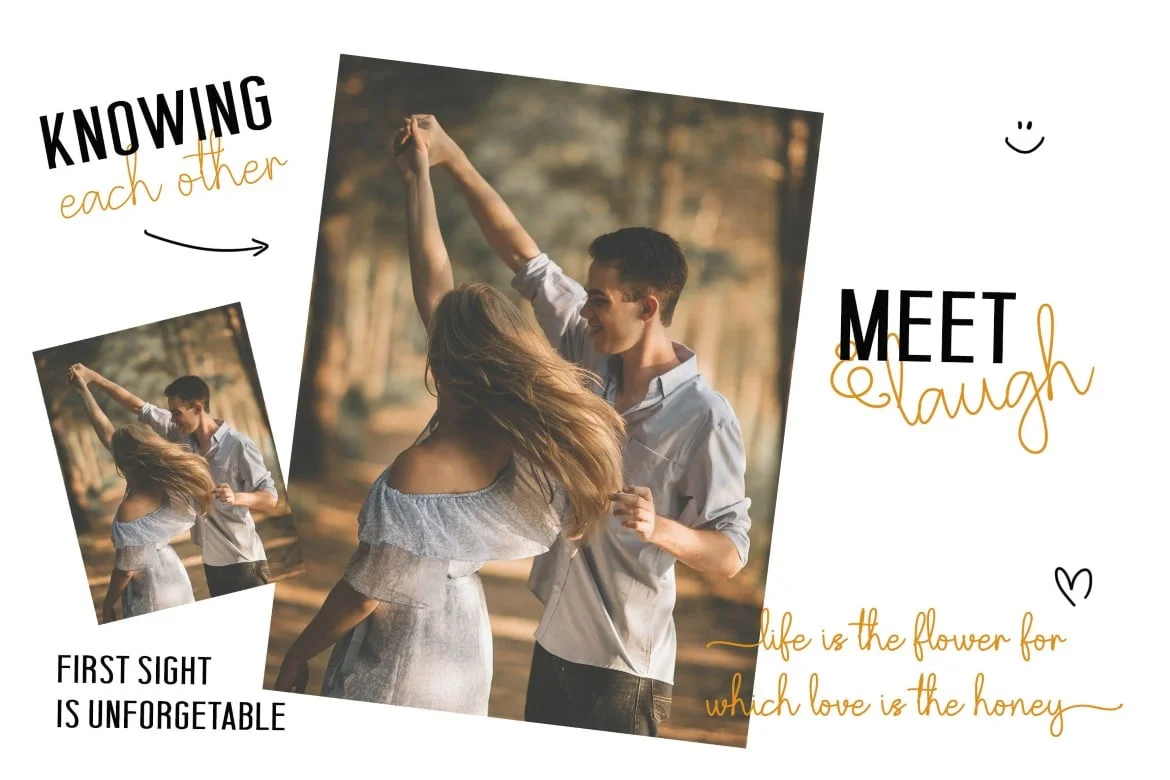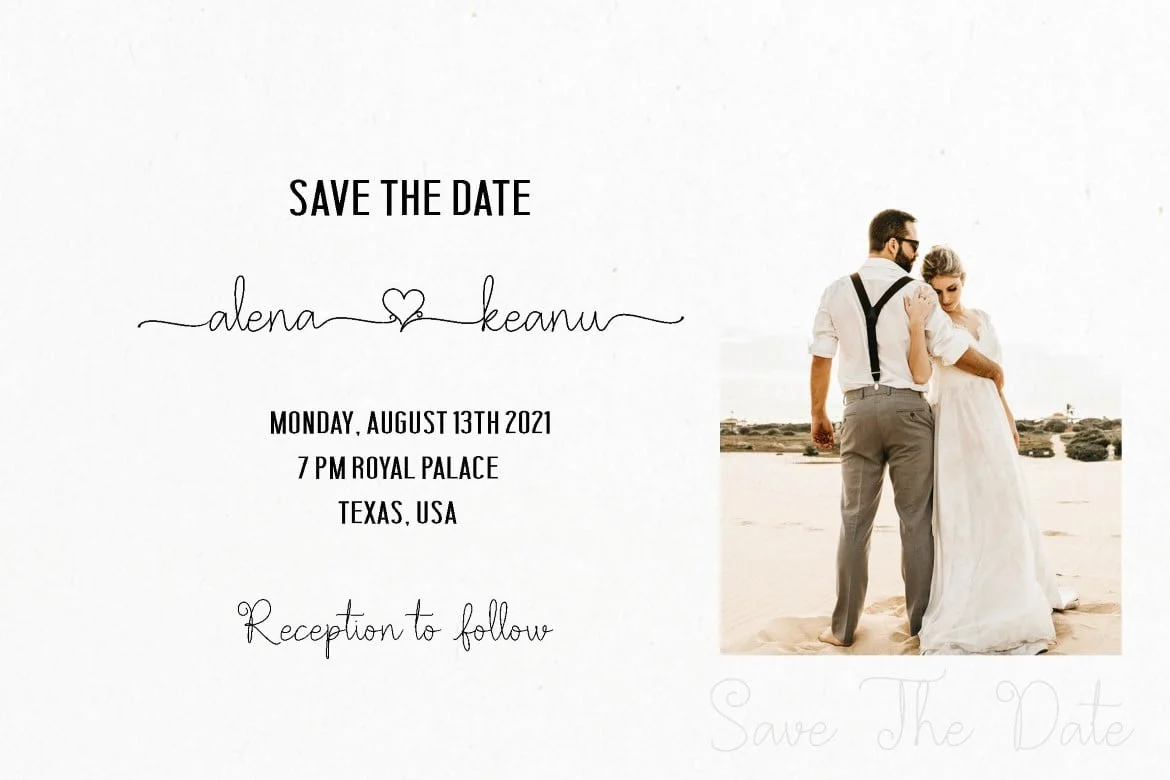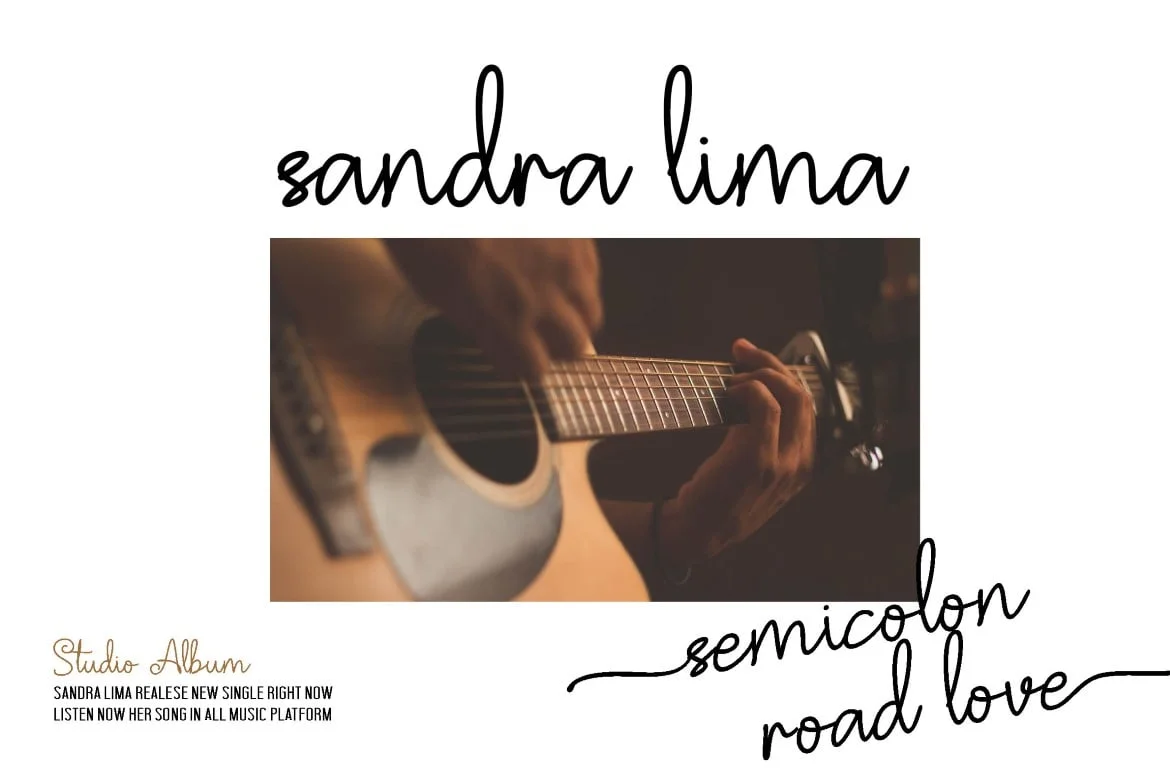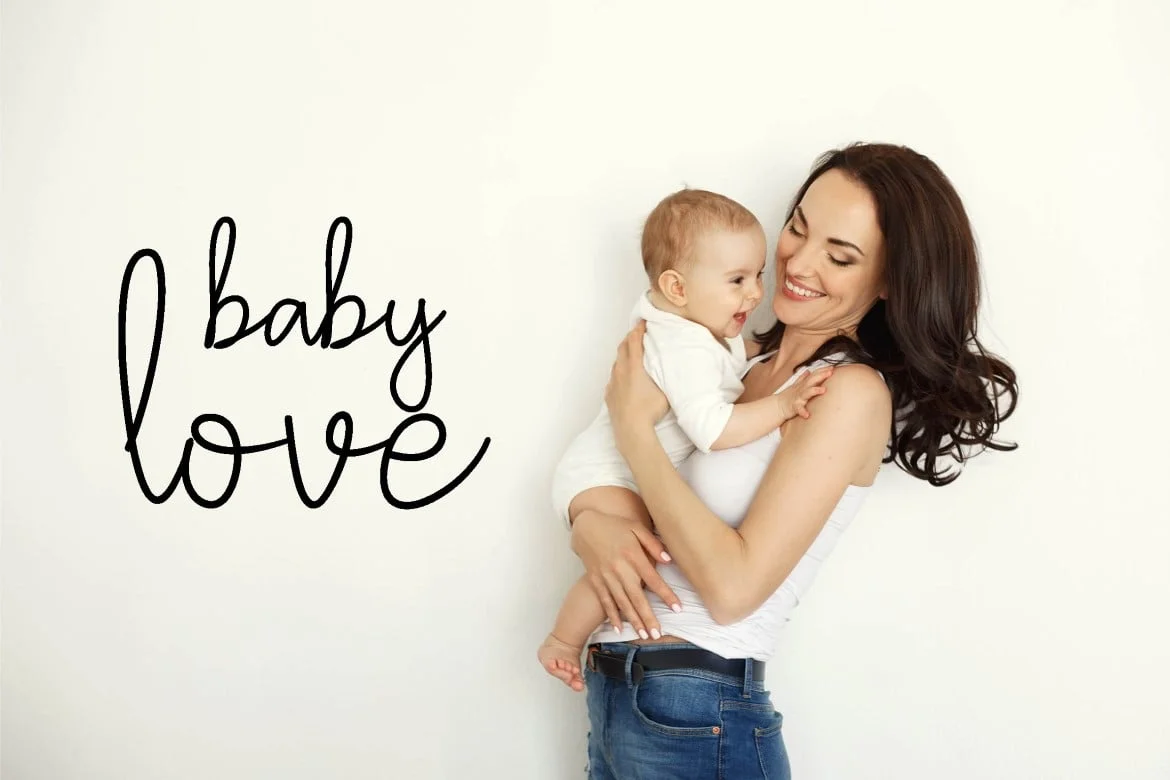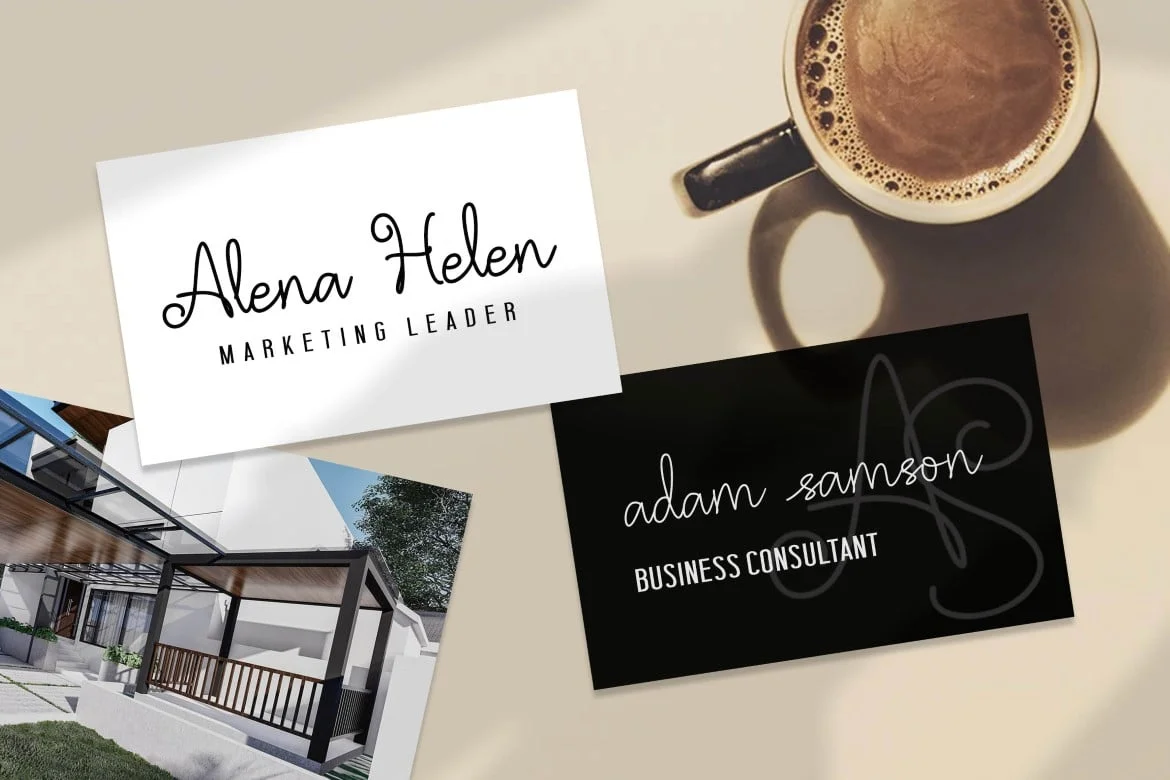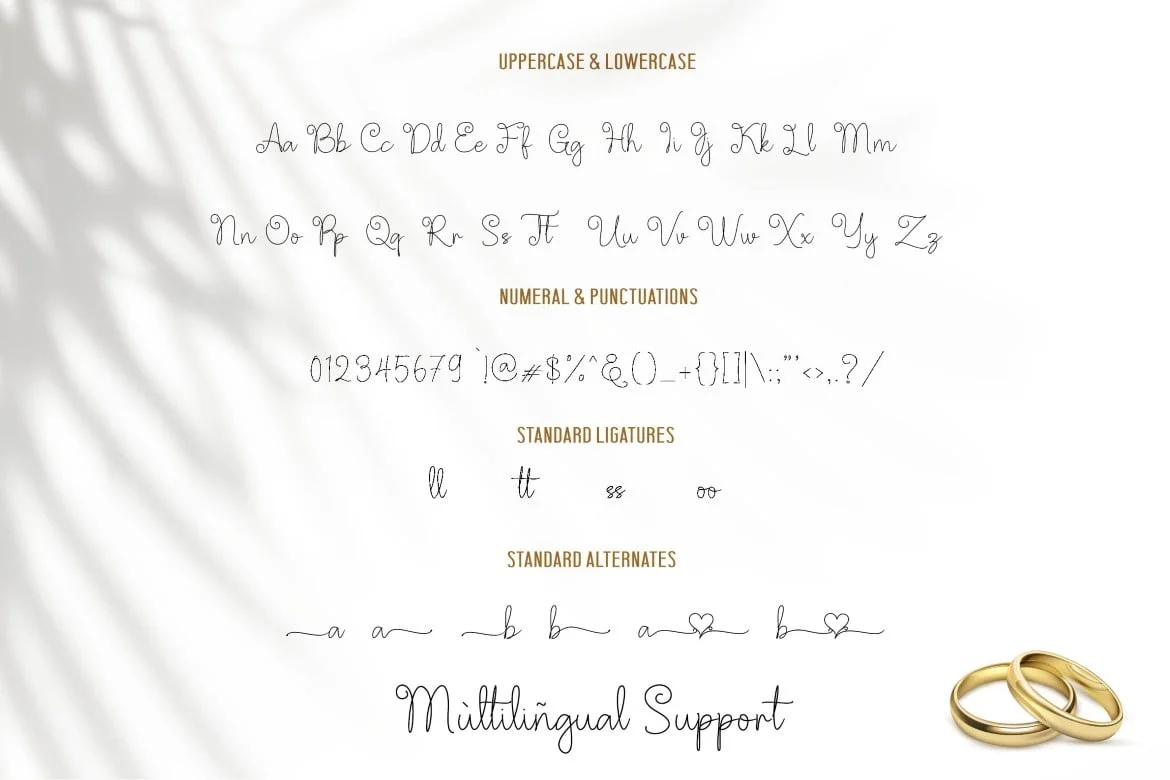
Will You Marry Me Wedding Font
The Will You Marry Me Wedding Font excels in proposal design applications including romantic proposal invitations, engagement celebration branding, marriage proposal logos, romantic question packaging, proposal business cards, engagement portfolios, proposal greeting cards, romantic social media graphics, proposal event signage, and engagement marketing materials. Its proposal script style makes it perfect for projects requiring romantic elegance that communicates love proposals and establishes engagement brand positioning with audiences seeking memorable proposal experiences and romantic sophistication.
What makes the Will You Marry Me Wedding Font genuinely exciting is its exceptional ability to capture the heartfelt emotion and romantic anticipation of marriage proposals through lovingly crafted letterforms. The font features flowing, romantic strokes with proposal-inspired flourishes and engagement proportions that create a distinctly emotional appearance. Each character displays remarkable attention to romantic detail with heartfelt curves, proposal connections, and intimate spacing that give text a deeply personal, hand-lettered quality. The font's proposal character and romantic rhythm create an atmosphere of love anticipation while maintaining elegant sophistication and engagement authenticity.
The Will You Marry Me Wedding Font family typically includes regular weight with extensive character coverage, featuring uppercase and lowercase letters, numerals, punctuation marks, and international characters. The typeface often incorporates stylistic alternates, contextual ligatures, and romantic swashes that enhance its signature proposal appeal. These additional elements provide designers with creative flexibility to customize text appearance and achieve more natural-looking proposal handwriting that reflects the font's romantic and engagement character.
This romantic signature font distinguishes itself through its remarkable balance of emotional intensity and elegant presentation. Unlike casual or impersonal fonts that lack proposal significance, Will You Marry Me Wedding Font embraces the power of romantic design to create unforgettable proposal moments and emotional connections with couples. The font's proposal character makes it essential for engagement planners, proposal service brands, and romantic businesses where creating memorable proposal experiences and emotional connections is fundamental to success in engagement and wedding markets.